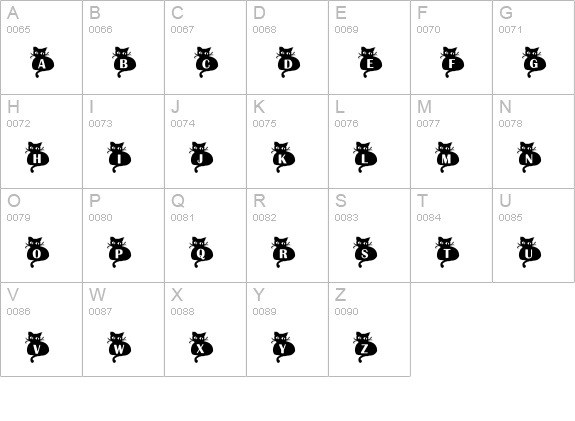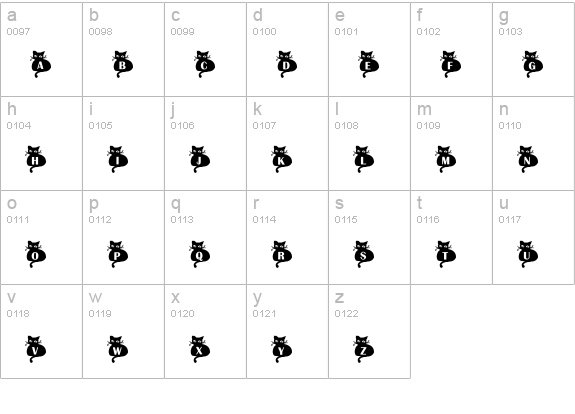
Nine Lives font is a versatile and stylish typeface that brings a touch of elegance and sophistication to any design project. With its sleek lines and modern look, Nine Lives is perfect for a wide range of applications, from branding and advertising to invitations and social media graphics. What makes Nine Lives font even more appealing is that it is available for free download at FontsMarket.com. This means that you can easily add this beautiful font to your collection without any cost, making it a valuable asset for both personal and commercial use. Whether you are looking to elevate your designs with a touch of class or simply want to experiment with a new typeface, Nine Lives font is the perfect choice. Download it today and unleash your creativity with this stunning font.